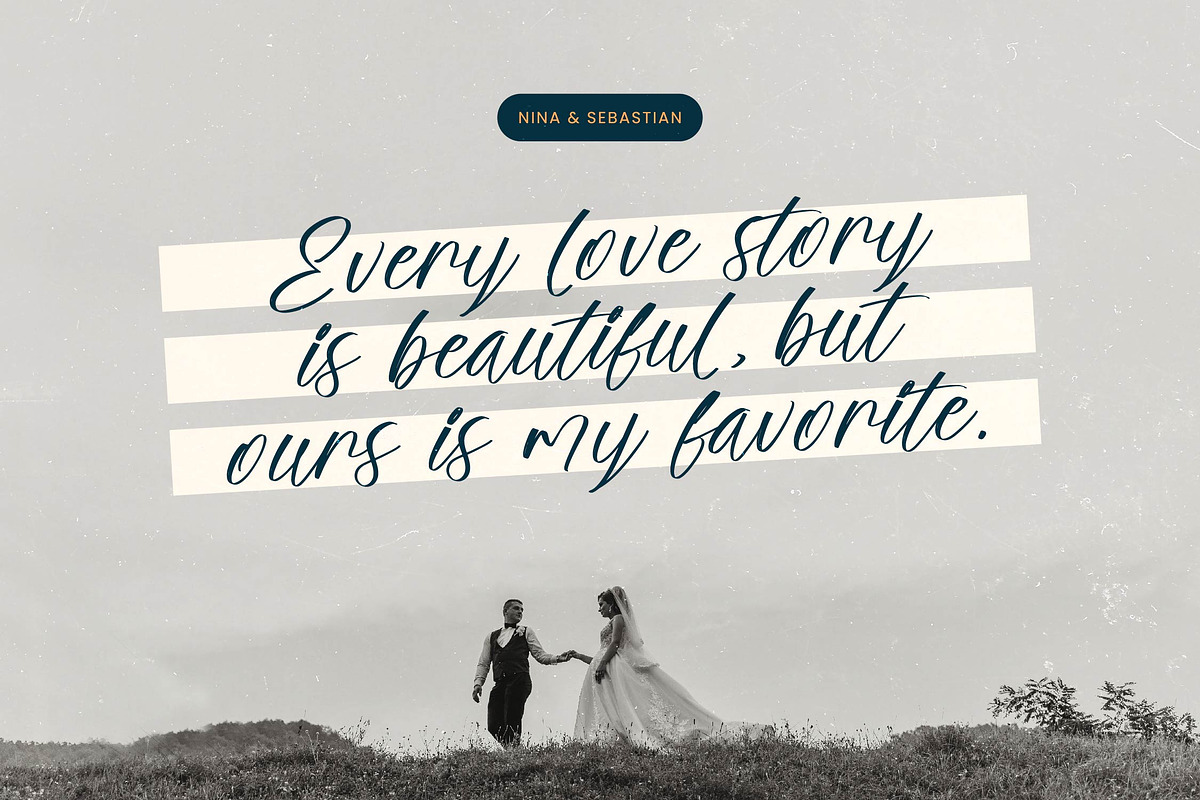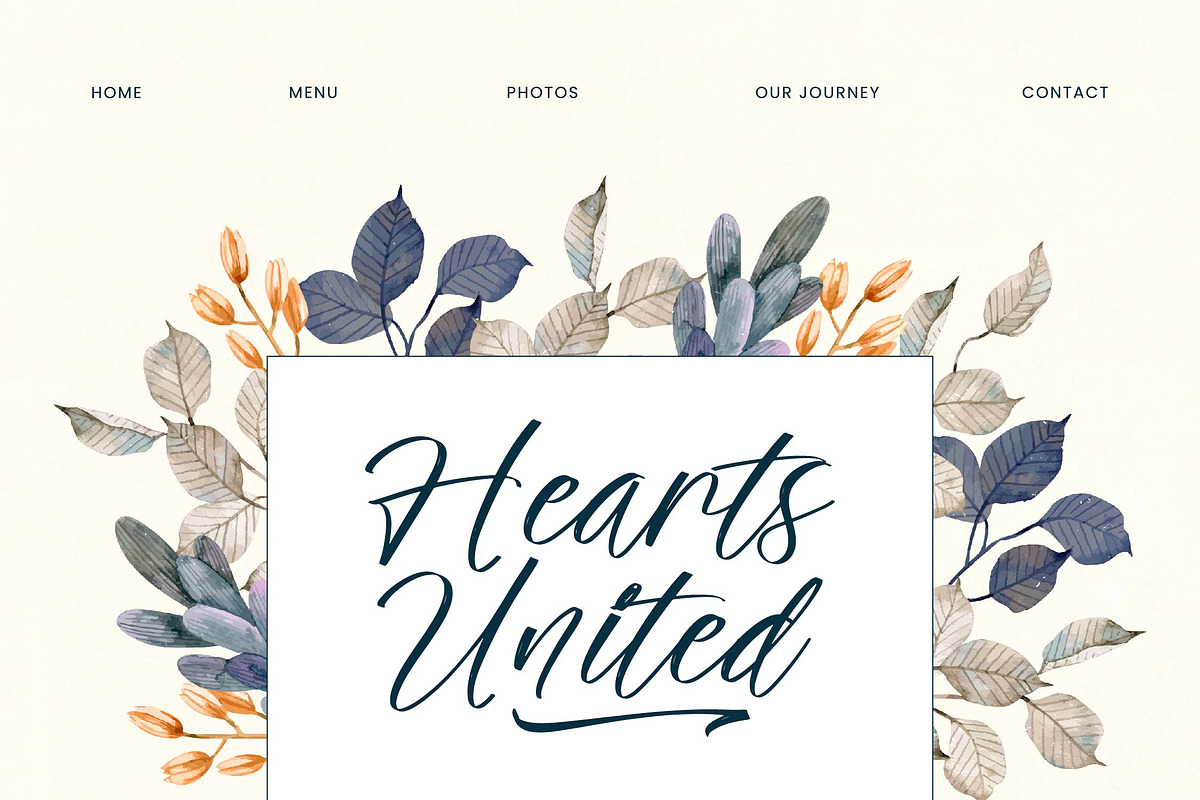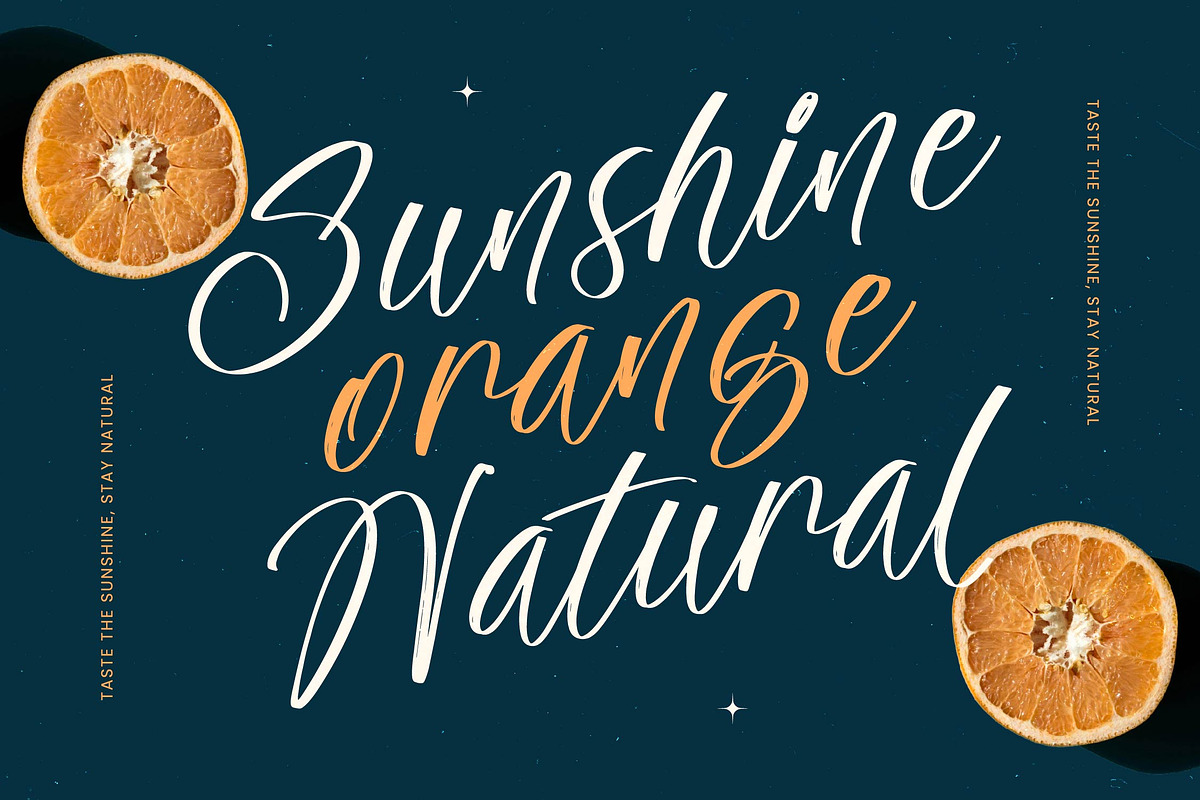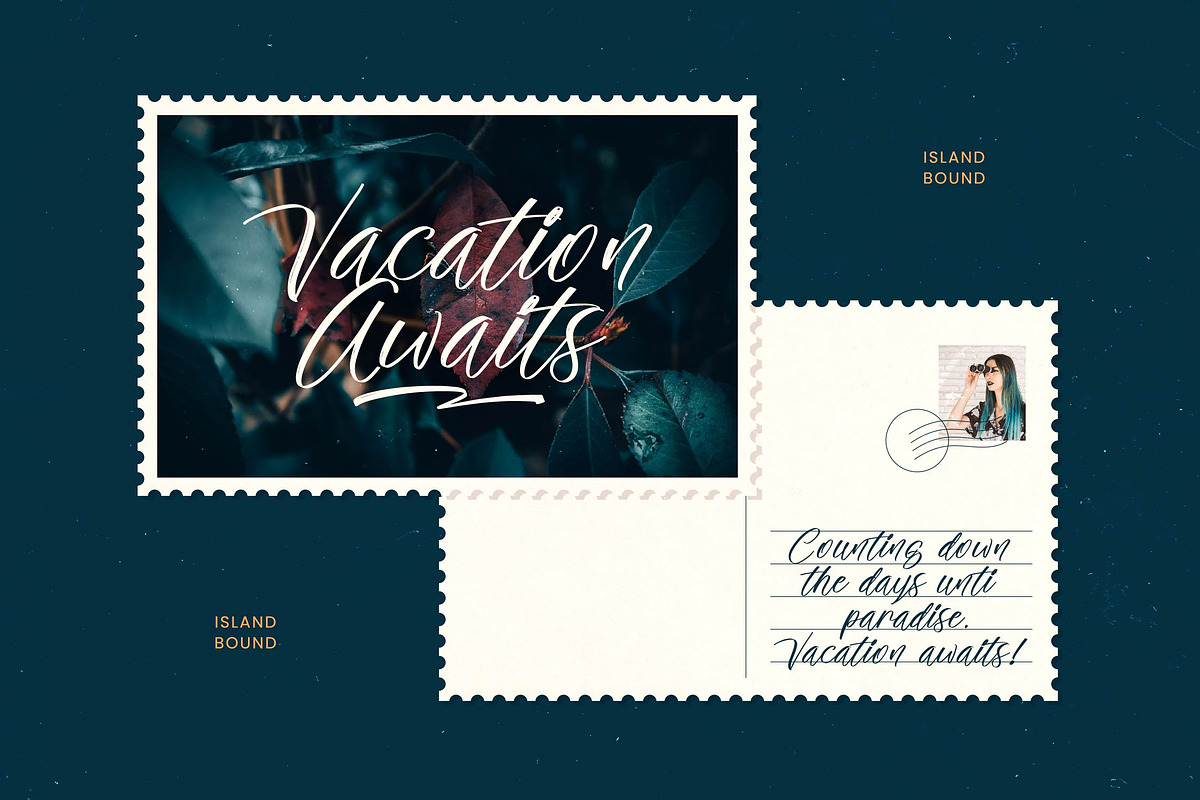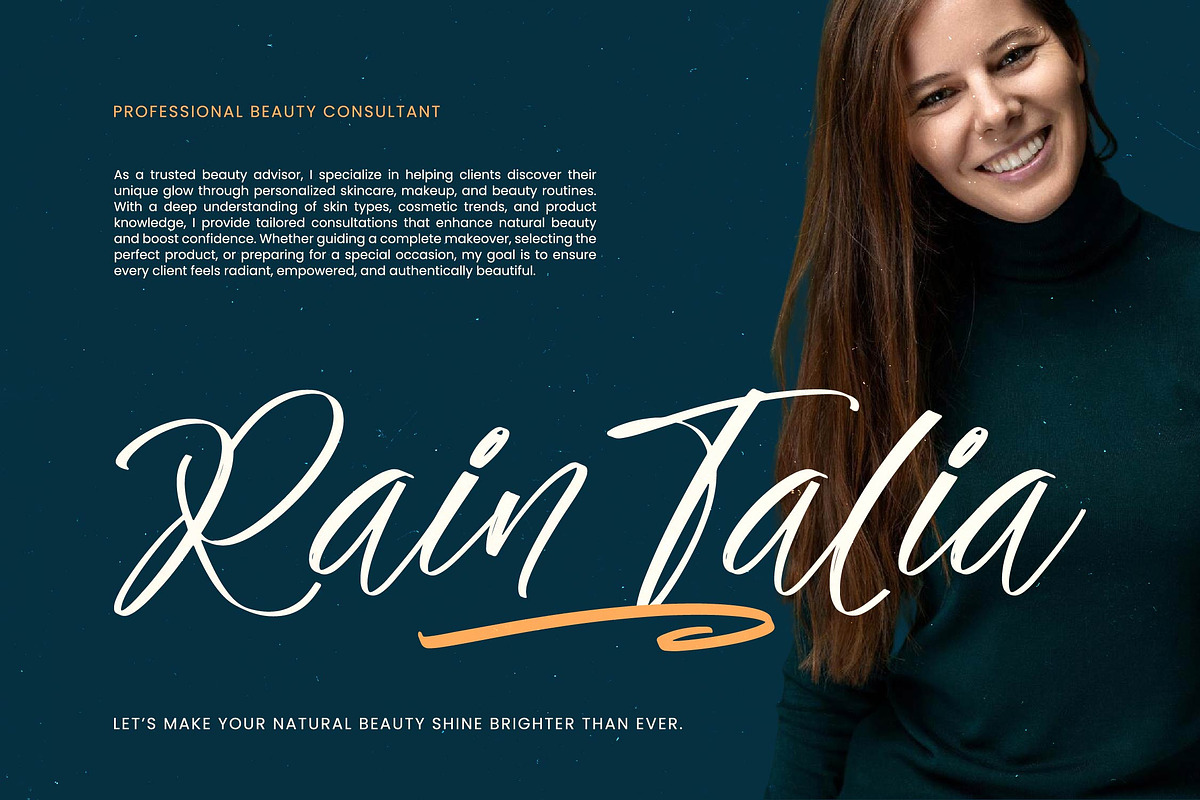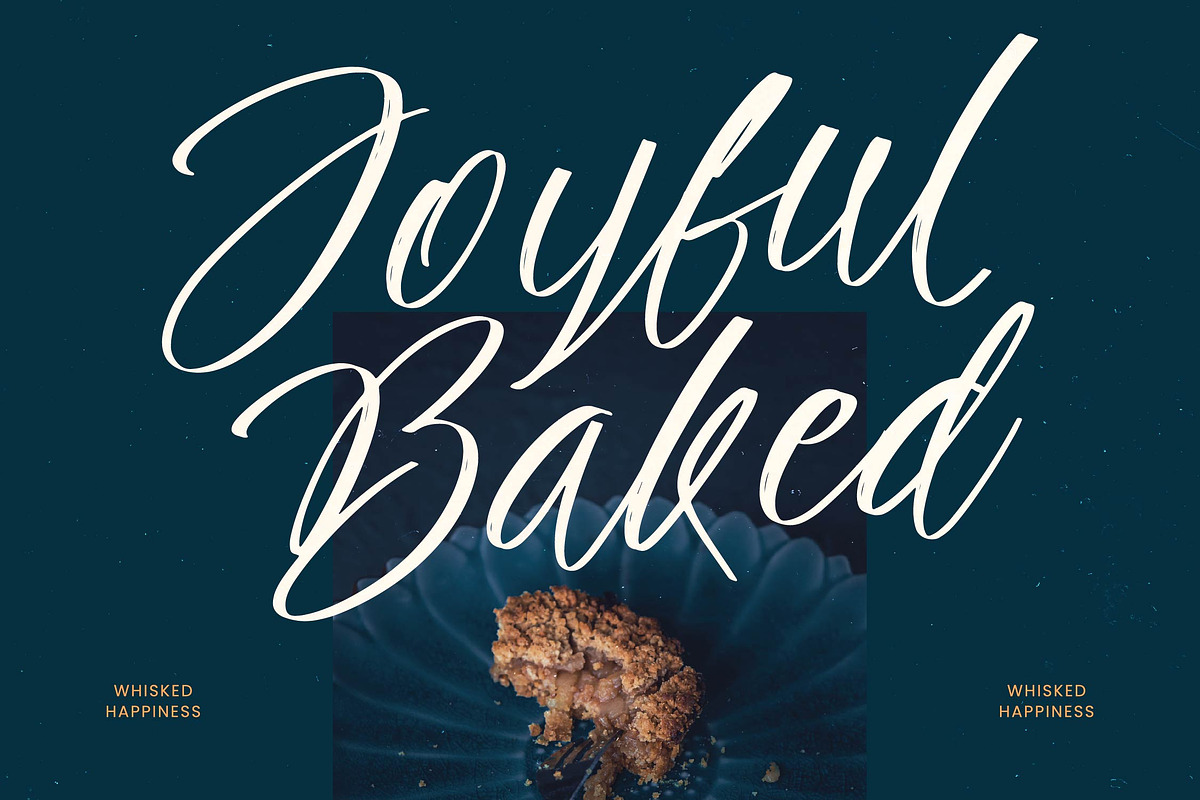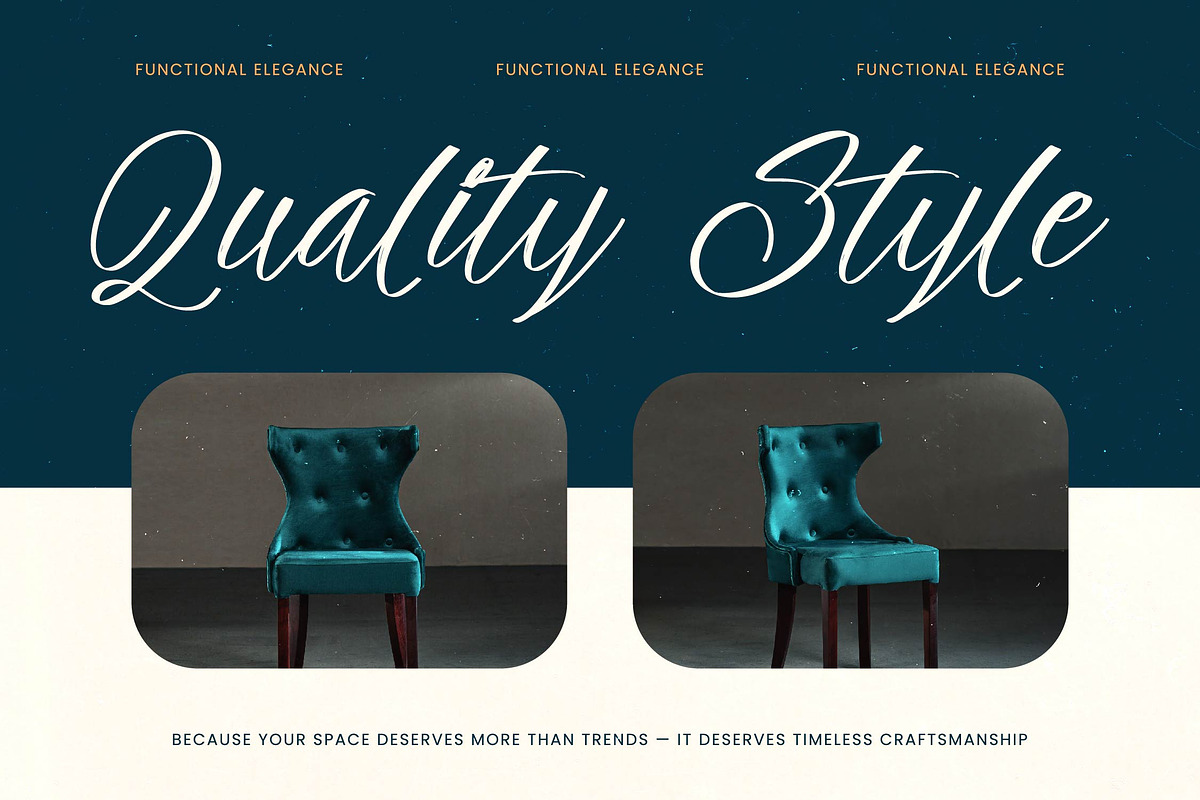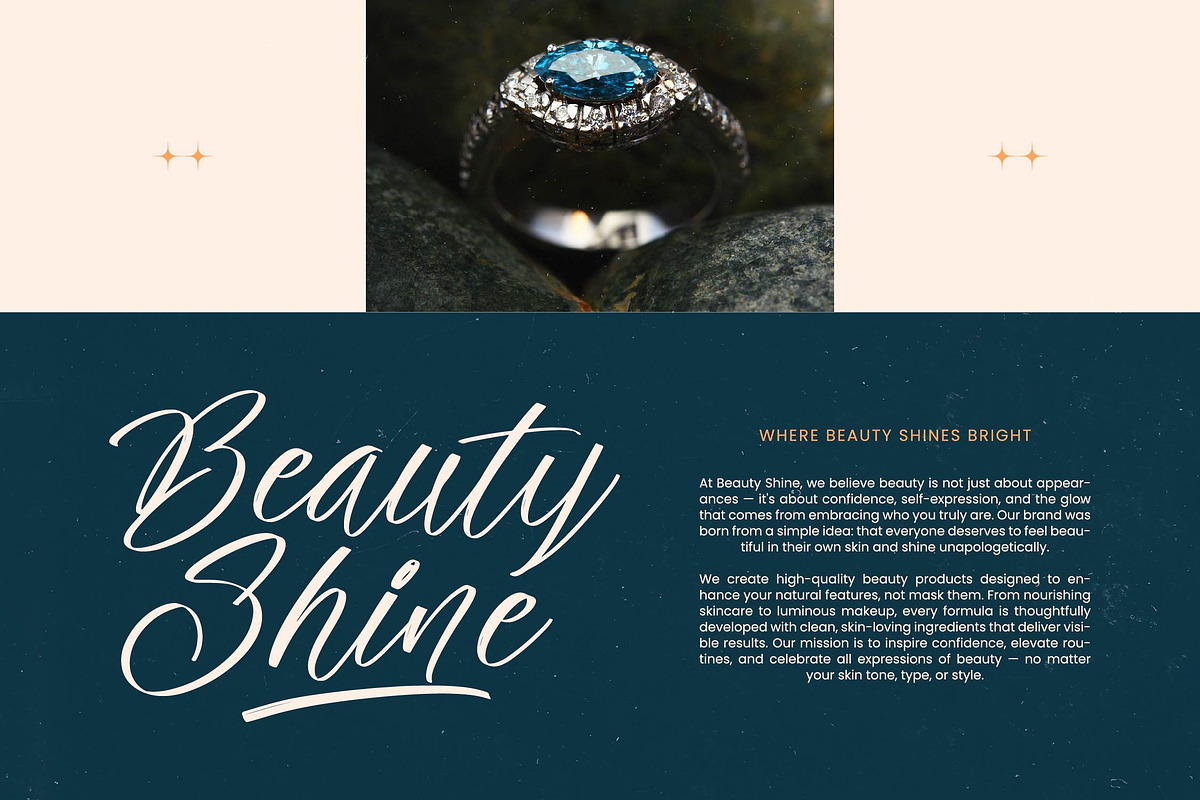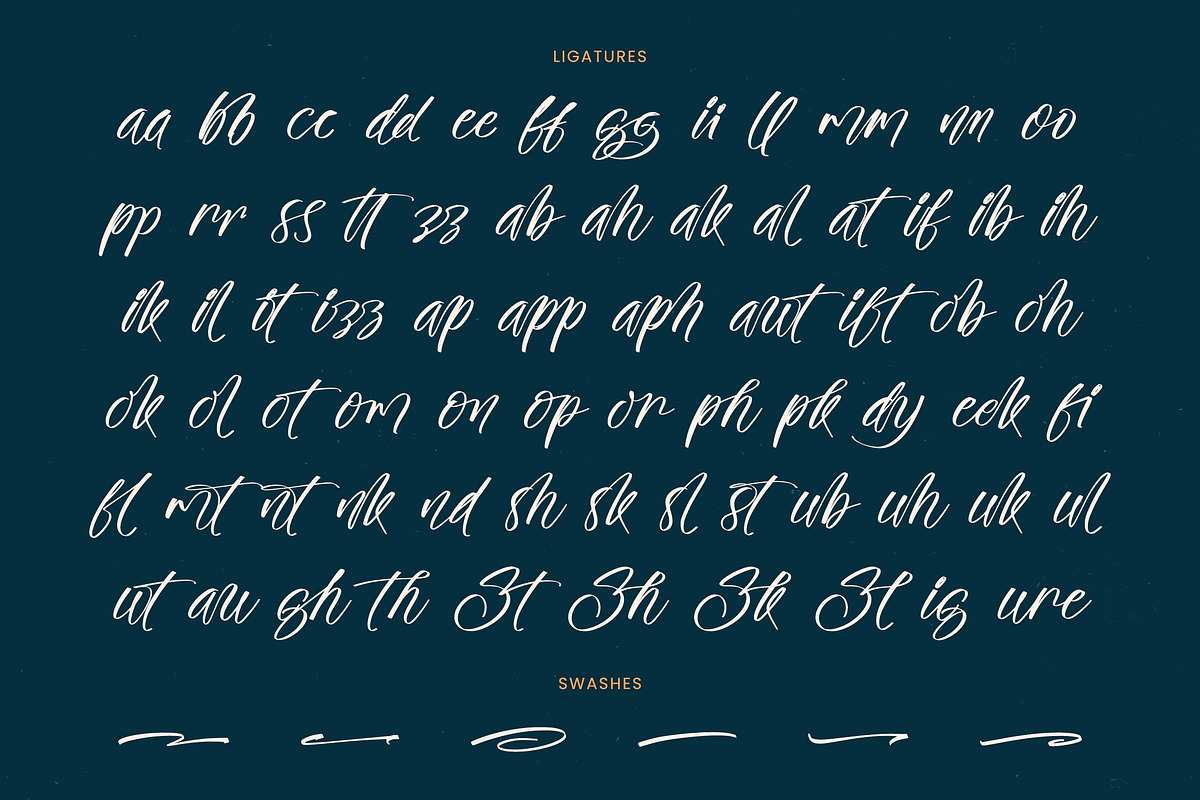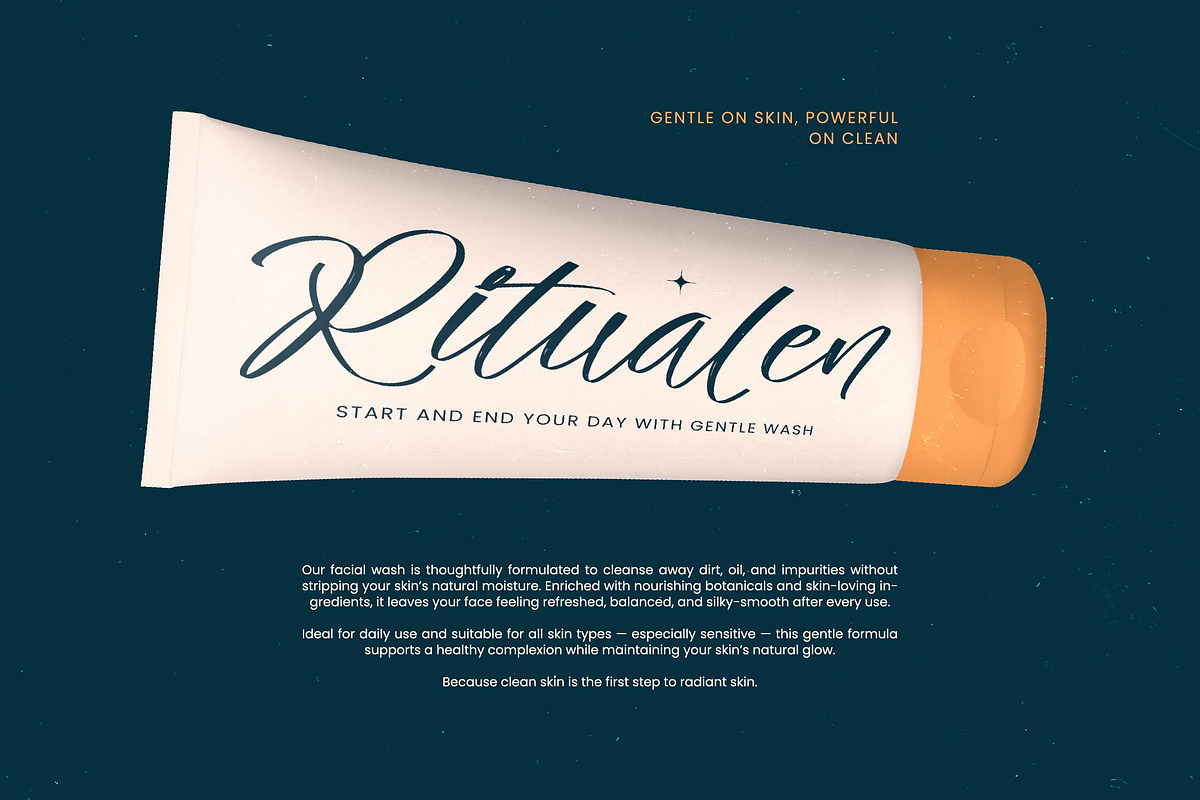
The Newyork Bold Handwritten Font
The Newyork - Bold Handwritten Font , from Stylishtype.Co , Suitable for any projects such as: logos, branding projects, homeware designs, product packaging, mugs, quotes, posters, shopping bags, t-shirts, book covers, name card, invitation cards, greeting cards, label, photography, watermark, special events, and all your other luxury and beautiful projects that need a Luxury Script taste.
- 71 Ligature 06 Alternates & Swashes